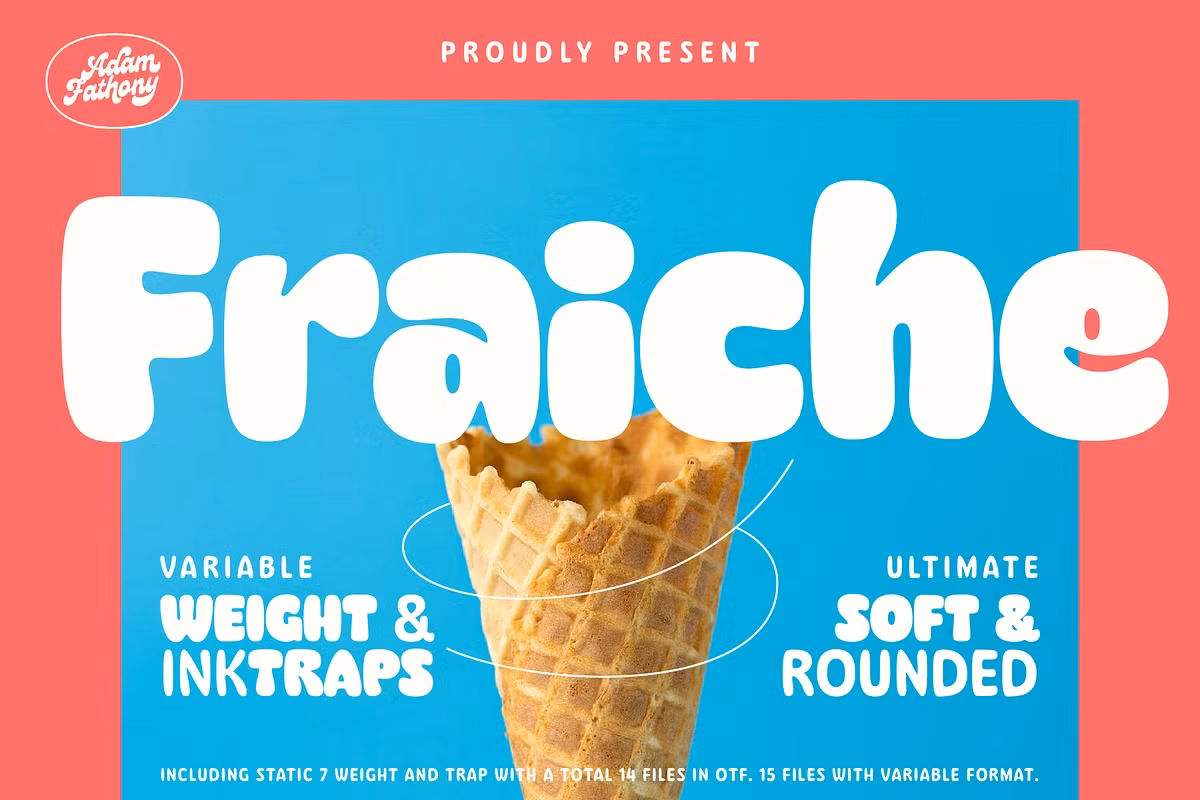
Fraiche Font Free Download is a modern, variable rounded typeface that blends softness with versatility. With its smooth curves and clean geometry, Fraiche is ideal for branding, product packaging, editorial design, UI/UX, and any project that calls for a fresh, friendly, and approachable feel.
As a variable font, Fraiche offers seamless control over weight and width, allowing you to tailor the typography to perfectly fit your design. Its rounded terminals add a touch of warmth and personality without sacrificing professionalism, making it a go-to choice for both corporate and creative uses.
Packed with full character support, including uppercase, lowercase, numerals, and punctuation, Fraiche Font Free Download gives you all the tools you need for clean, modern typography. Test it in your personal projects to experience its flexible charm, and don’t forget to purchase a commercial license for professional use. Add a smooth, contemporary edge to your designs with this polished rounded font.